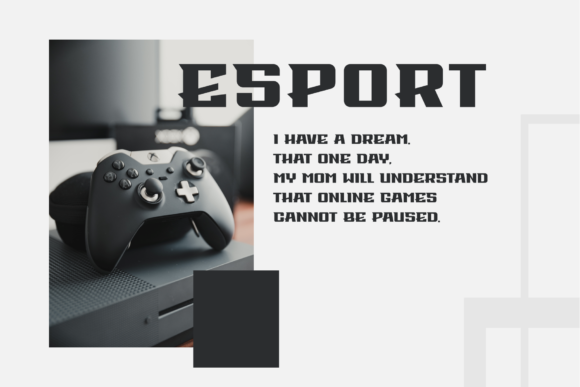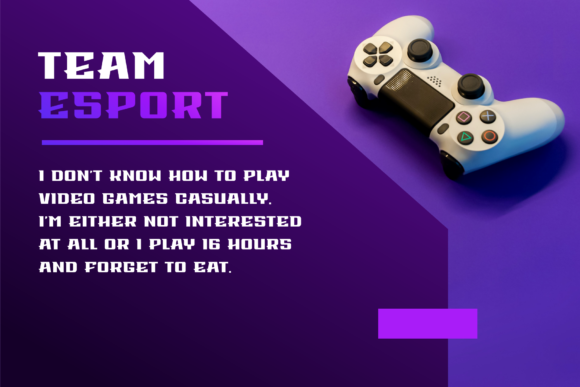
The Ultimate Display Font: Unleashing the Power of Berkuda
Ah, the elusive perfect font. You know, that one design project where everything seems to be falling into place, except for the typography. I’ve been there, done that, and got the t-shirt (which, by the way, was printed in a font that was almost, but not quite, perfect). But then, I stumbled upon Berkuda, and let me tell you, it’s been a game-changer.
A Game-Changing Display Font
Berkuda is an incredibly unique display font, masterfully designed to become a true favorite among designers, crafters, and creative hobbyists. Its unique charm and character have the potential to bring each of your creative ideas to the highest level! Whether you’re working on a branding project, a social media graphic, or a craft project, Berkuda is sure to make a statement.
So, what makes Berkuda so special? Here are a few things I love about this font:
• ✨ Unique and quirky design that’s sure to stand out
• ✅ Highly legible, even at smaller sizes
• 💥 Excellent for headlines, titles, and short paragraphs
• 🎨 Great for branding, advertising, and marketing materials
Of course, no font is perfect, and Berkuda is no exception. Here are a few quirks to keep in mind:
• 🤔 May not be the best choice for body text or long paragraphs
• ⚠️ Some characters may not work well at very small sizes
The Story Behind Berkuda
Berkuda was designed by a team of talented typographers who wanted to create a font that would stand out from the crowd. Inspired by traditional Indonesian art and culture, Berkuda is a unique blend of modern and traditional design elements. The result is a font that’s both elegant and playful, perfect for designers who want to add a touch of personality to their work.
What is Berkuda? Berkuda is a unique display font designed for creative projects and designs.
Is Berkuda suitable for body text? No, Berkuda is best used for headlines, titles, and short paragraphs, and may not be suitable for body text or long paragraphs.